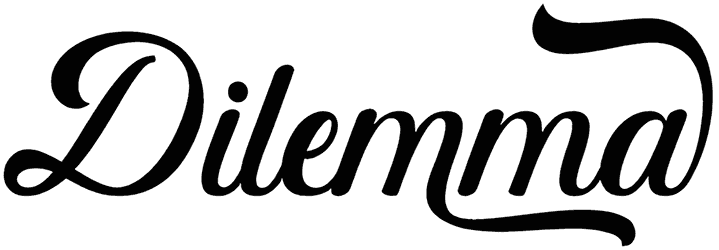
Dilemma Font
Your next vintage projects are going to be a great success now that you know just the way to go for it. Adding a retro font like Dilemma usually changes the whole dynamic of your lettering and makes things much sweeter with its eye-pleasing style. Isn’t it just awesome?
Letting you approach the audience playfully, this italic swash font can give you a hand in designing your classic movie posters, dancing website banners, restaurant flyers, and so many more projects.